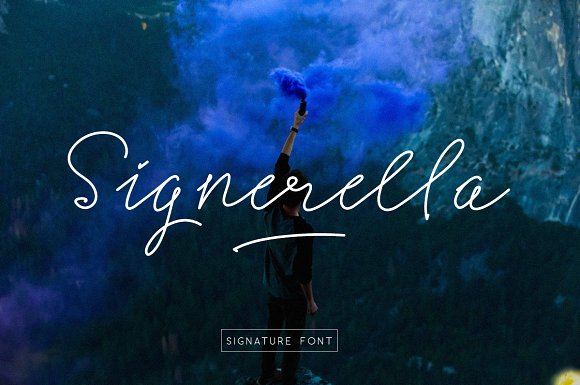
Signerella Font Duo
Signerella Font Duo is perfect for elegant wedding invitation suites, luxury brand signature campaigns, sophisticated business correspondence, premium handcrafted product labels, exclusive boutique branding, upscale calligraphy services, refined social stationery designs, high-end personal branding materials, distinguished corporate identity systems, and graceful artistic portfolio layouts. This exquisite typeface combination brings signature elegance to luxury jewelry packaging, premium wine labeling, executive letterheads, elegant greeting card collections, and sophisticated lifestyle brand communications.
Signerella Font Duo is exciting because it masterfully combines the intimacy of personal handwriting with the sophistication of professional typography through its beautifully harmonized font pairing. The duo features an elegant script font that captures the flowing grace of signature penmanship alongside a refined sans-serif companion that provides perfect structural balance and contemporary readability. Its distinctive dual-character construction demonstrates the perfect marriage between personal authenticity and professional polish, creating visual narratives that feel both intimate and sophisticated. The font pair's signature-inspired elegance and professional versatility make it perfect for brands seeking to communicate personal touch, authentic craftsmanship, and refined sophistication in their visual communications.
The Signerella Font Duo family includes various signature-inspired combinations: Script & Sans Pair, Bold Pair, Light Pair, Condensed Pair, Extended Pair, Ornate Pair, Simple Pair, Flourished Pair, Clean Pair, Textured Pair, Decorative Pair, and Elegant Pair variants. Each duo maintains the core signature DNA while offering different levels of formality for diverse luxury design applications. The comprehensive typeface collection ensures consistent signature branding across premium product lines, luxury service offerings, and sophisticated communication materials.
Signerella Font Duo Free Download provides designers with an exceptional tool for creating memorable and authentically elegant visual experiences. This remarkable font combination seamlessly integrates personal charm with professional functionality, making it ideal for both digital luxury applications and premium signature-themed print materials. The duo's carefully crafted elegant details and signature authenticity create captivating visual narratives that resonate with audiences seeking personal connection, luxury experiences, and sophisticated self-expression.
Whether you're developing luxury brand identities, designing premium wedding stationery, creating sophisticated website headers, or crafting exclusive marketing materials, Signerella Font Duo delivers outstanding signature appeal and elegant sophistication. The font pair's distinctive handcrafted personality excels in luxury logos, premium packaging design, signature applications, and sophisticated projects where personal elegance and authentic craftsmanship are essential.